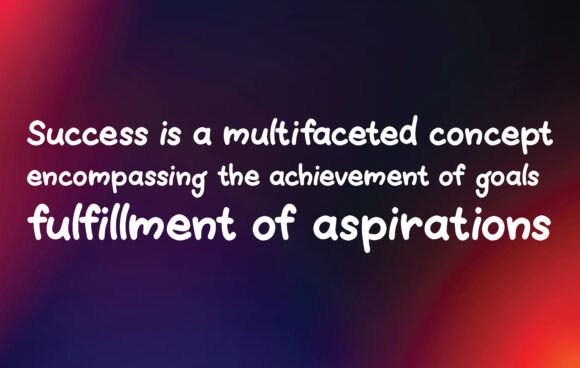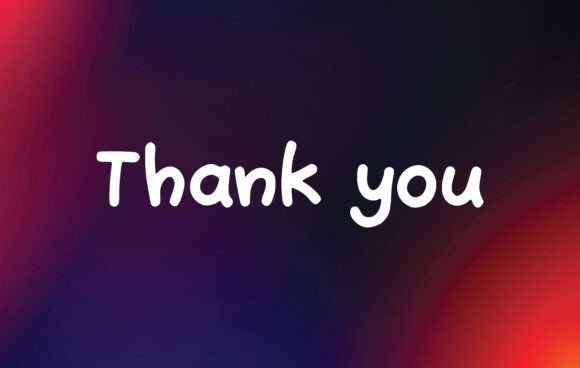
The Power of Handwritten Elegance: Unlocking Your Creative Potential with Anne Font
Have you ever sat down with a blank piece of paper, a cup of coffee, and a dash of creativity, only to be met with a blank stare? The struggle is real, but what if you had the perfect tool to spark your imagination and bring your ideas to life? That’s where Anne Font comes in – a beautiful, handwritten font that’s designed to elevate your creative vision and make your designs truly unforgettable.
Whether you’re a seasoned designer or a budding artist, Anne Font is the perfect companion for creating stunning logos, branding, and quotes that grab attention and leave a lasting impression. Its unique, handwritten style adds a touch of warmth and personality to any design, making it a valuable asset for any creative project. With Anne Font, you’ll be able to tap into your full creative potential and produce work that truly shines.
Key Features of Anne Font
- Font Family: A sans-serif font family, designed for use in digital media, including websites, apps, and other digital platforms.
- Unique Characteristics: Features a clean and modern design, with a distinctive x-height and a range of weights, from Light to Bold, allowing for a high degree of flexibility in its use.
Designer Review: Anne Font
Overall, I was impressed with the ✨ elegance and sophistication of Anne Font. The font’s refined lines and subtle flair give it a timeless feel, making it perfect for high-end branding and publishing projects.
- ✨ Elegant and sophisticated design
- ✨ Suitable for high-end branding and publishing projects
- ✨ Wide range of language support
However, I did encounter some ⚠️ limitations during my testing. The font’s weight and size options are somewhat limited, which may not be ideal for designers who prefer a wider range of customization options.
- ⚠️ Limited weight and size options
- ⚠️ May not be suitable for projects requiring a wide range of font sizes and weights
Overall, I would recommend Anne Font for designers working on high-end projects that require a touch of sophistication and elegance. While it may not be the best choice for projects requiring extensive customization options, it’s a solid choice for those looking for a refined and polished font.
Some common use cases for Anne Font include:
- Creating elegant and sophisticated designs for wedding invitations and stationery.
- Designing high-end packaging and branding materials.
- Adding a touch of luxury and sophistication to business reports and presentations.